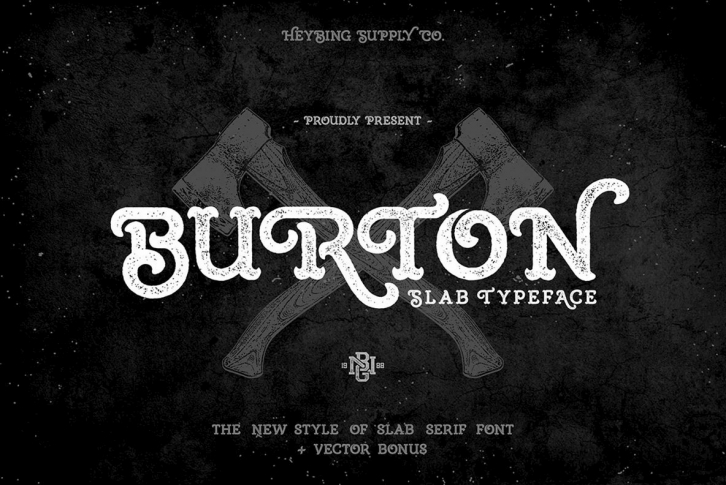
Designed by Heybing Supply Co., Burton Slab is a slab serif font with strong and unique shapes, that can handle a lot of design situations. Burton is stylized to contain a retro and vintage feel and contains 2 styles, clean and rough.
To create a beautiful and unique typesetting, just mix the uppercase and lowercase glyphs as well as swap out options using the openType alternates feature.
Burton Slab Typeface includes a full set of capital and lowercase letters, as well as multilingual support, currency figures, numerals, punctuation & some extra glyphs.